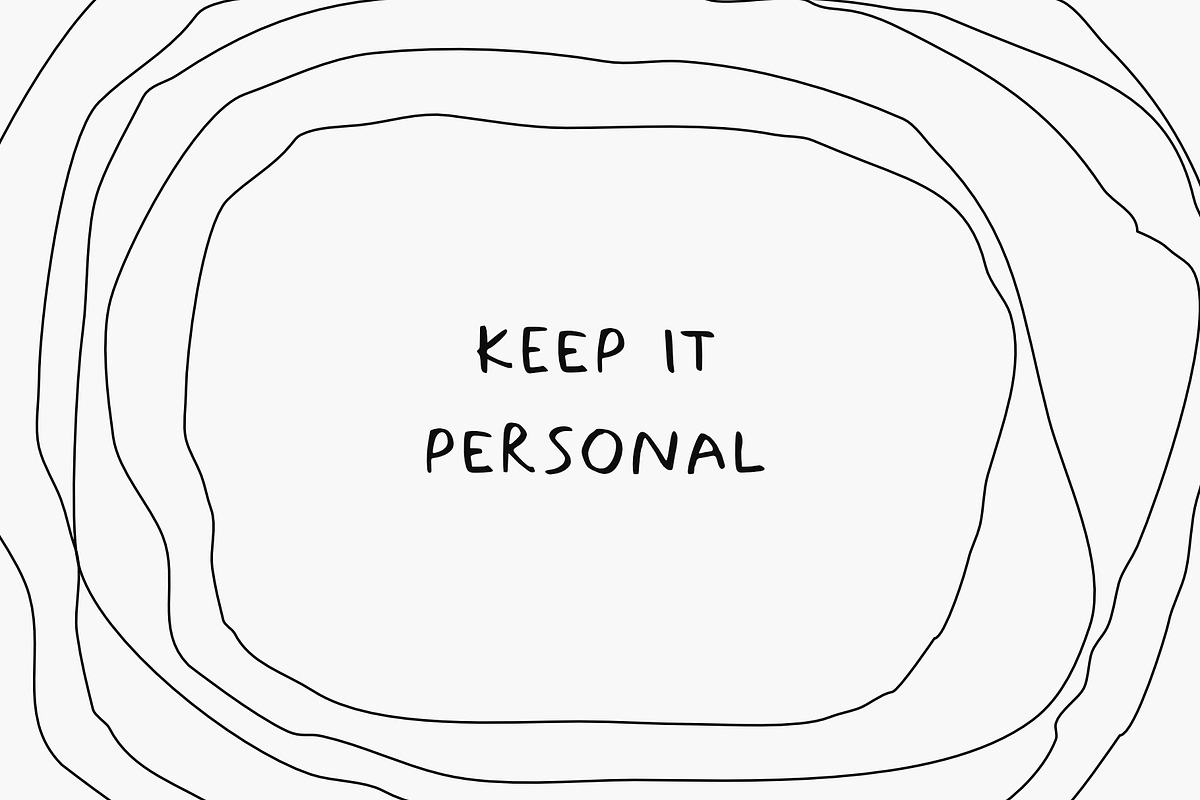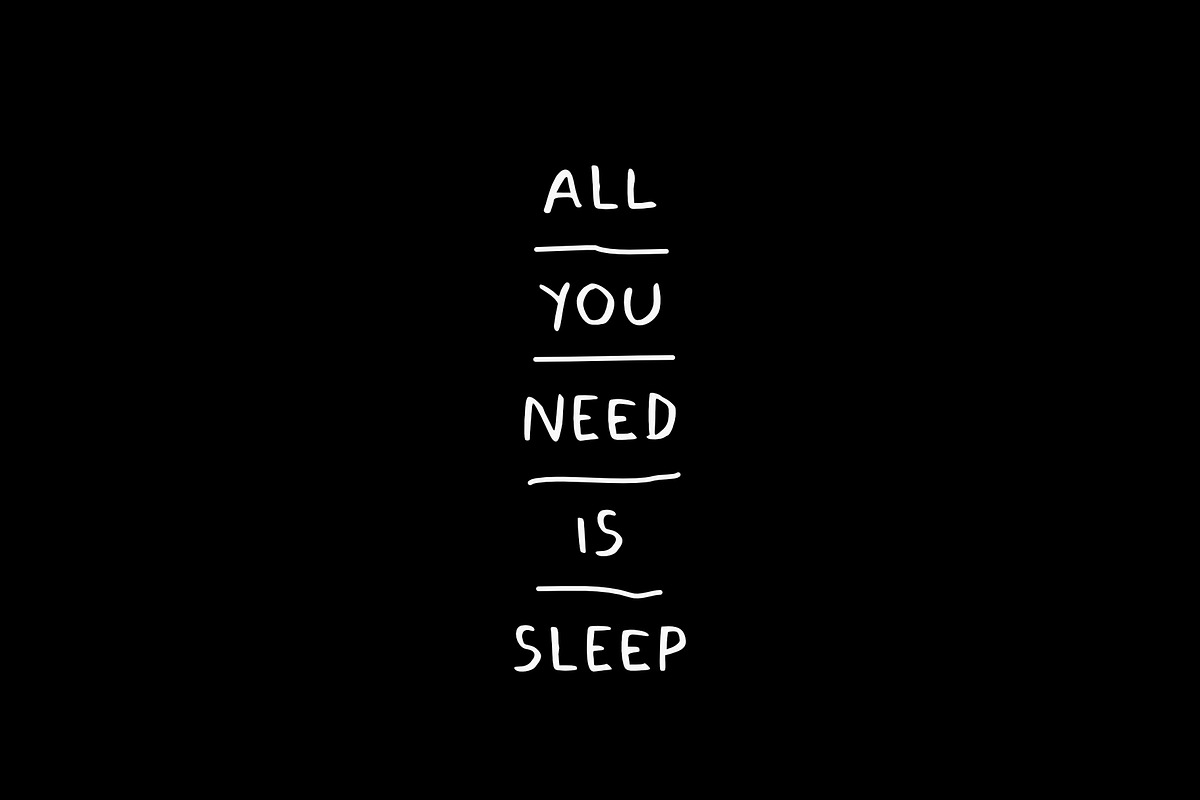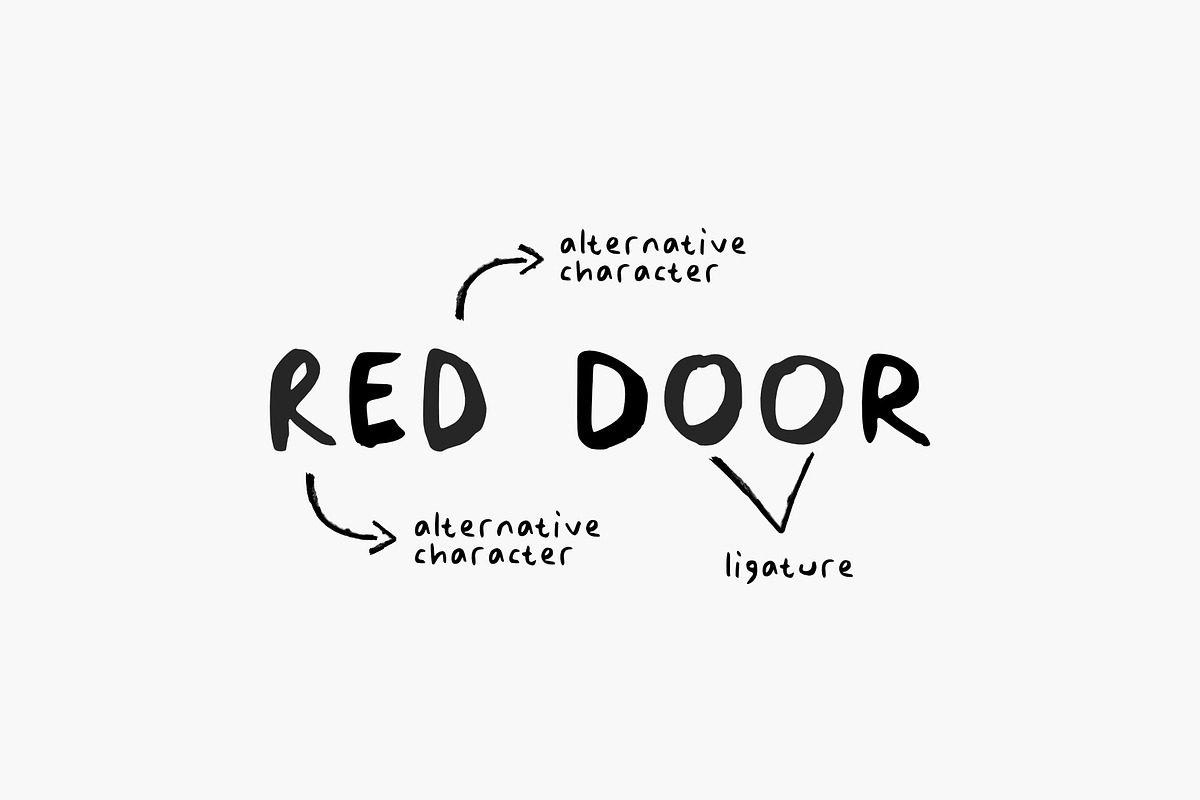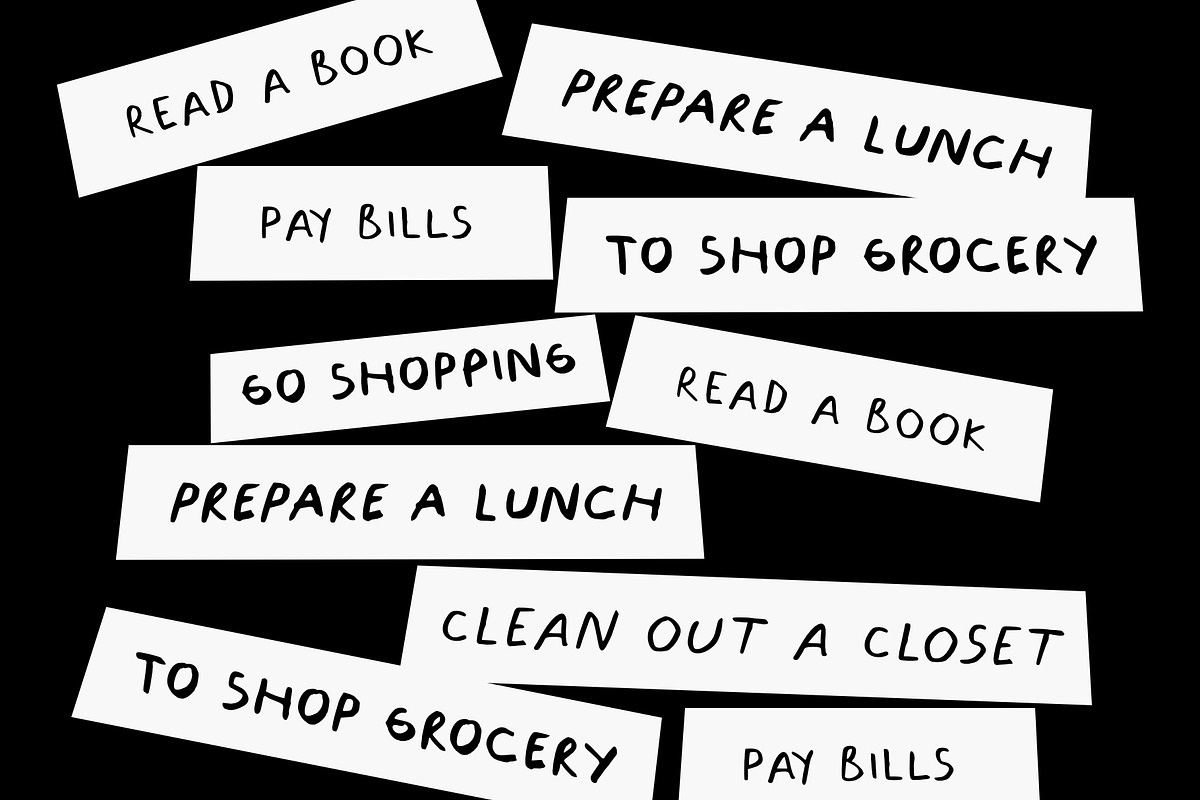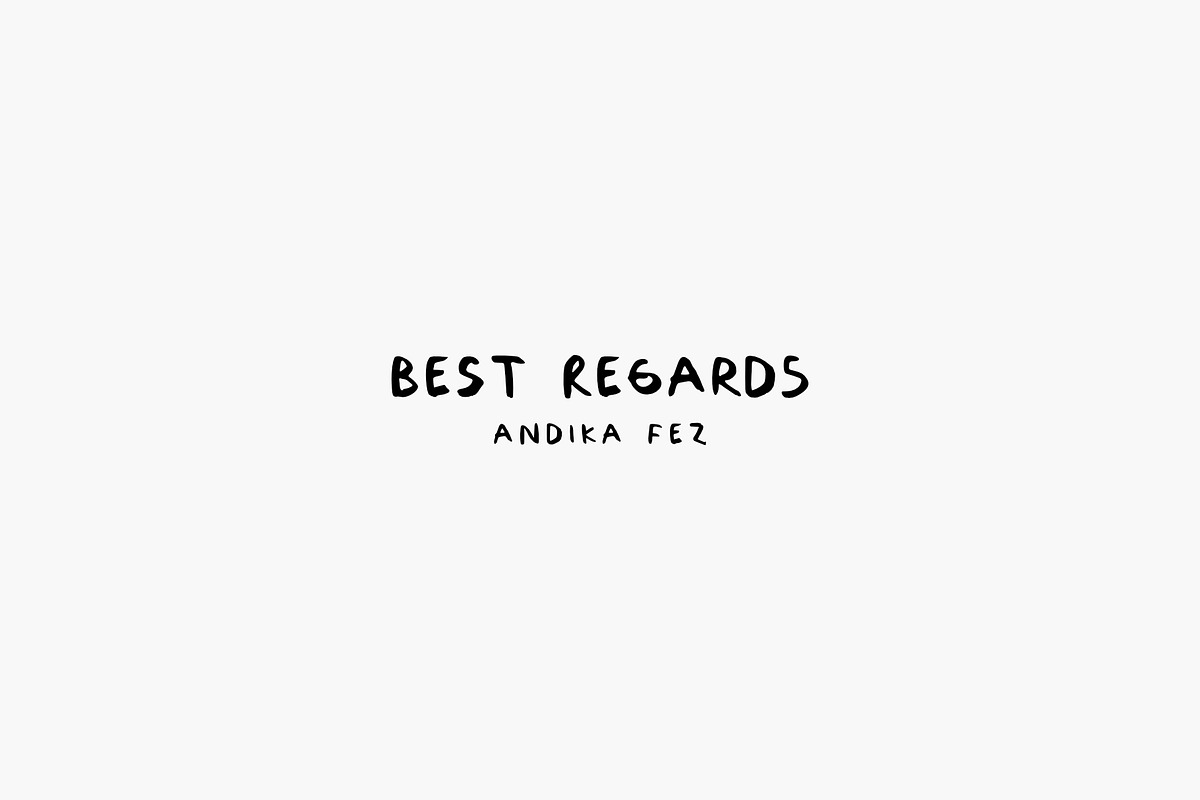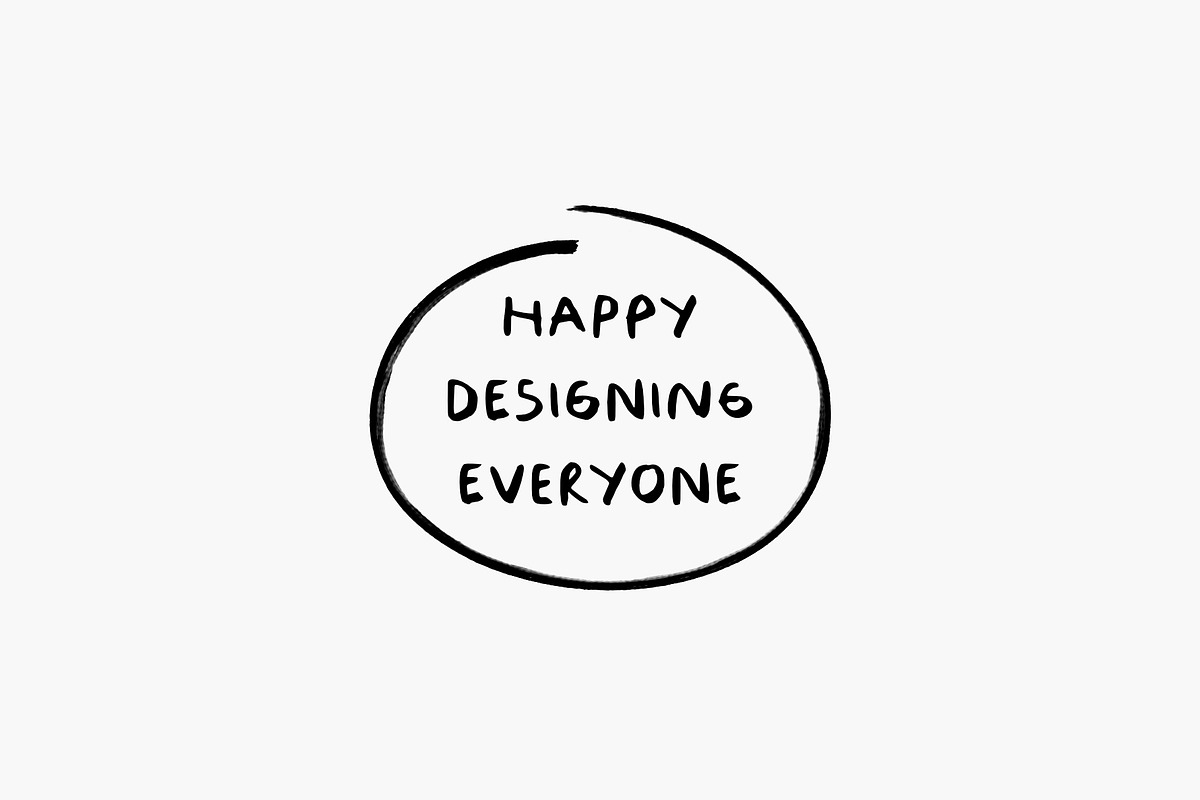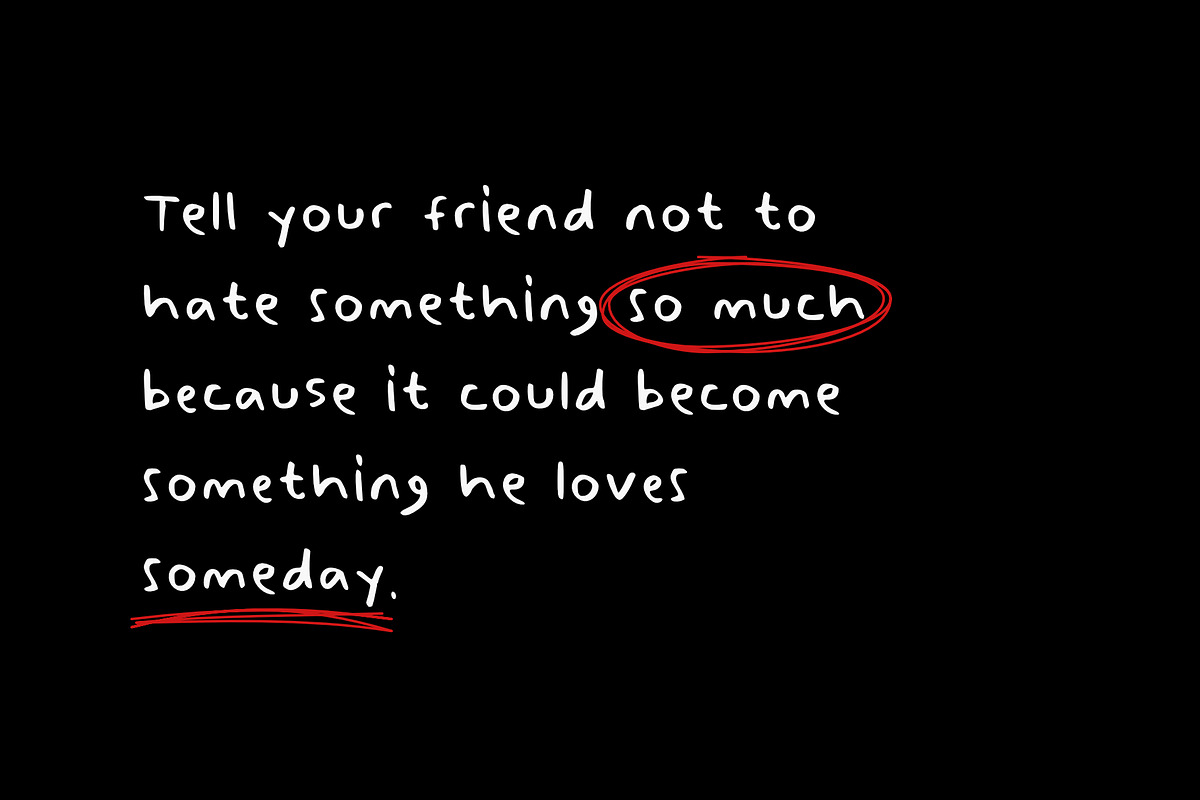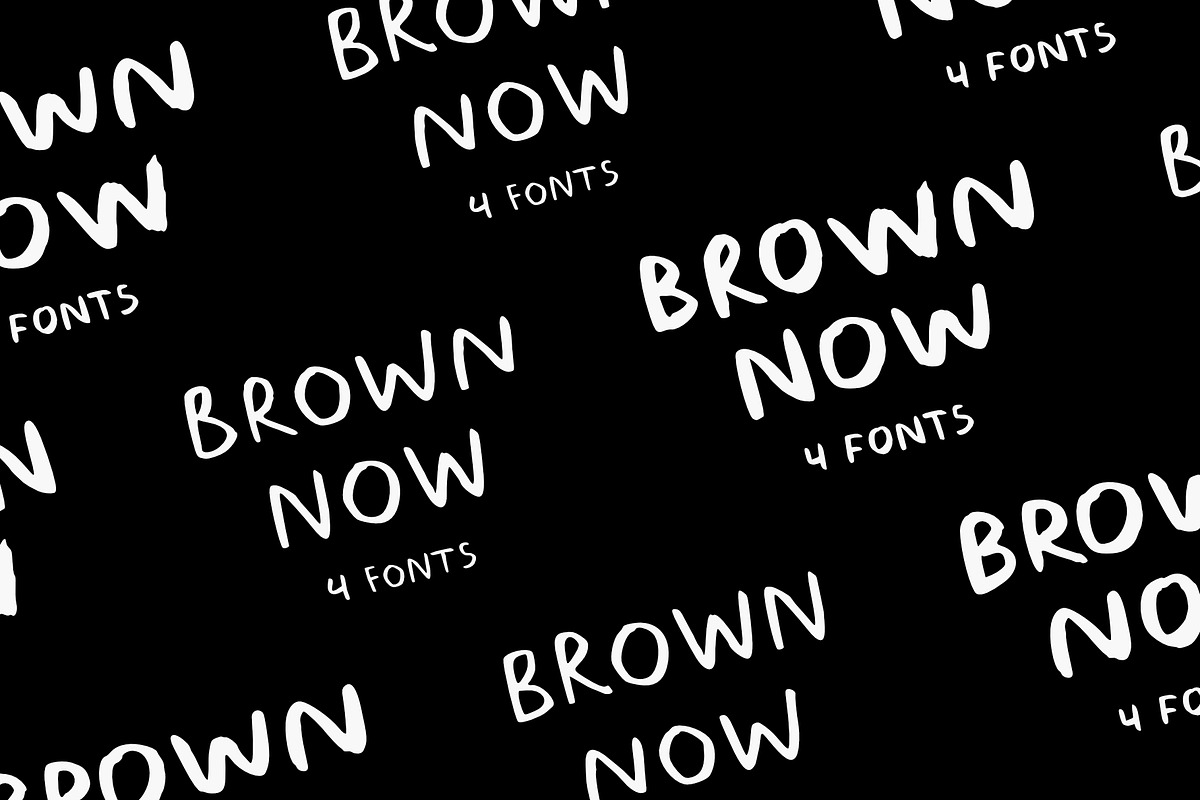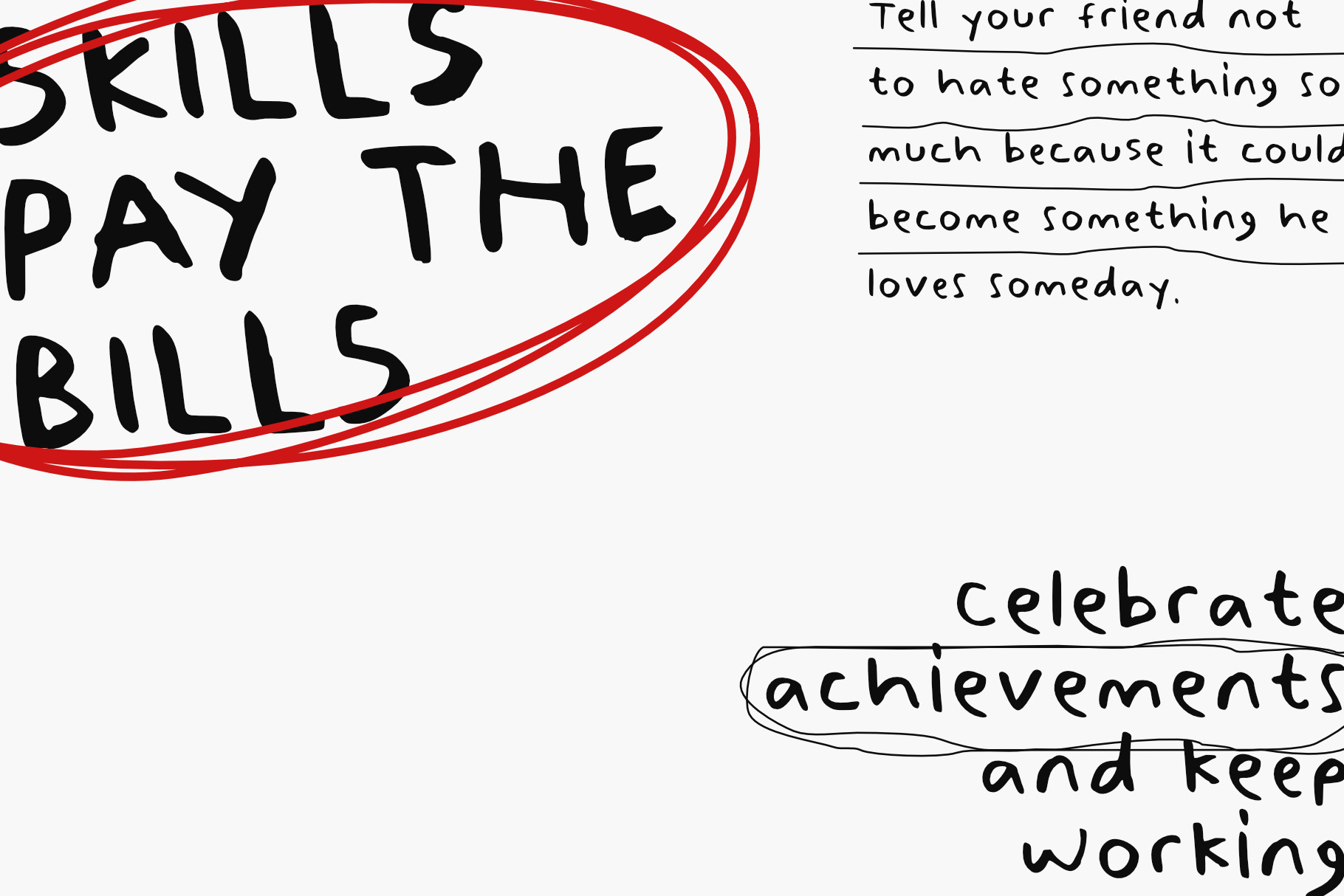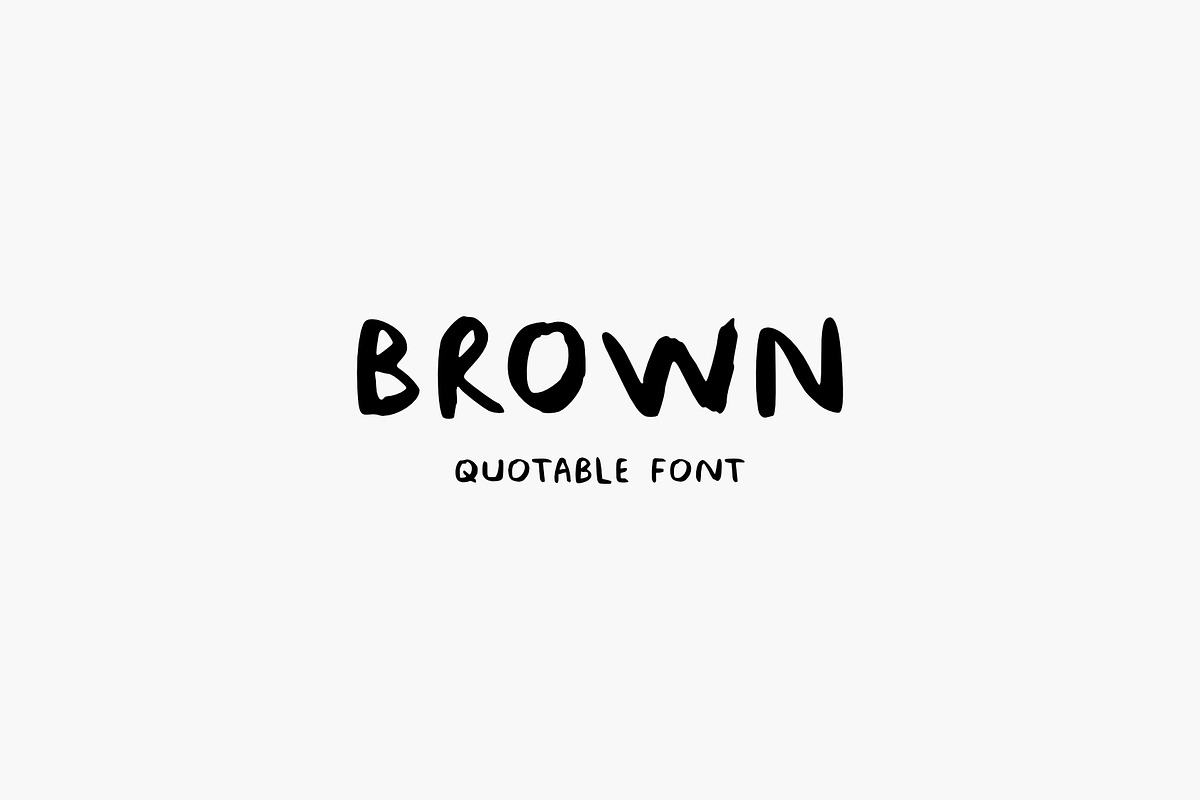
Brown Now Modern Handwritten Font
Say hello to Brown Now – a modern handwritten font that brings a touch of elegance and personality to every design. With smooth, flowing strokes and a bold, confident feel, it's perfect for logos, branding, and everything fashion.
Brown Now strikes that perfect balance between luxury and minimal—making it ideal for high-end wedding invites, elegant brand identities, and creative projects that need a personal yet polished touch.
Whether you're building a luxurious logo, a fashion-forward brand, or just want a standout font for your next big idea, Brown Now adds effortless style with modern charm.